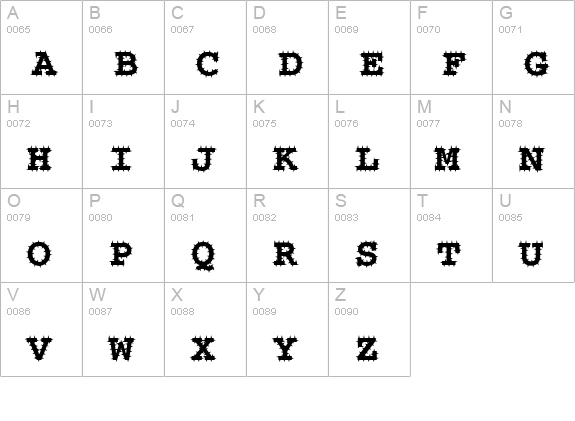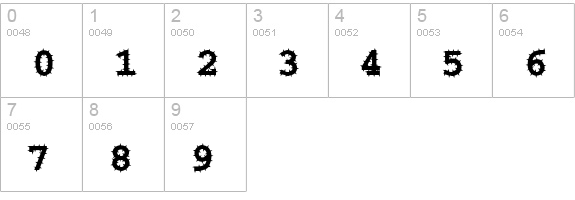
ChiselSpiked Normal Font Details
ChiselSpiked Normal is the standard, neutral variant in the ChiselSpiked typeface family \xE2\x80\x94 well suited to general body text, paragraphs, and standard typographic work.
ChiselSpiked Normal font is a bold and striking typeface that exudes a sense of power and strength. With its sharp edges and chiseled design, this font is perfect for making a statement in your designs. Whether you're creating posters, logos, or headlines, ChiselSpiked Normal will give your projects a dynamic and impactful look. The best part? ChiselSpiked Normal font is available for free download at FontsMarket.com. So you can add this eye-catching font to your collection without spending a dime. Don't miss out on the opportunity to enhance your designs with the bold and edgy style of ChiselSpiked Normal font.